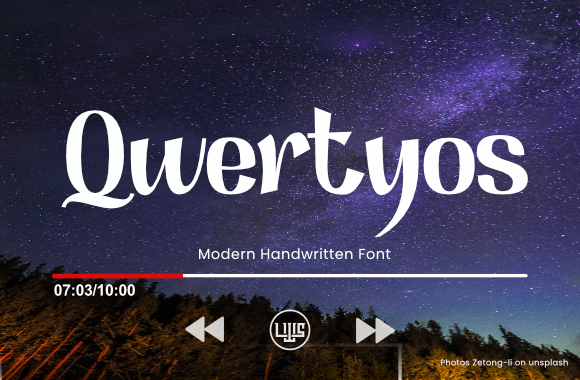
Indulge in the captivating essence of Qwertyos Font, a mesmerizing script masterpiece crafted with love by LittleWind Studio. Designed to ignite your creativity and elevate your projects to extraordinary heights, this font whispers elegance and allure, enchanting you with its seamless fusion of traditional calligraphy and modern flair.
Immerse yourself in a world where your words dance gracefully across the page, infused with an air of sophistication that captivates and inspires. Qwertyos Font is the ultimate choice for those seeking to make a lasting impression, whether it be through captivating social media posts, stunning invitations, or breathtaking branding materials.
Embrace the power of handwritten beauty, effortlessly blending the timeless charm of penmanship with the crisp precision of digital art. Qwertyos Font empowers you to express your unique voice with unparalleled style, leaving an enduring mark on all who encounter your creations.
Allow yourself to be swept away by the allure of Qwertyos Font, the perfect companion for any project yearning for a touch of refinement and timeless beauty. Adorn your designs with the grace of its flowing lines and impeccable details, captivating your audience with a symphony of visual delight.
Unleash the boundless potential of Qwertyos Font today and elevate your creative endeavors to new heights of excellence. Let this exquisite script font become your secret weapon for capturing hearts and minds, leaving an unforgettable impression that will resonate long after the final word is written.